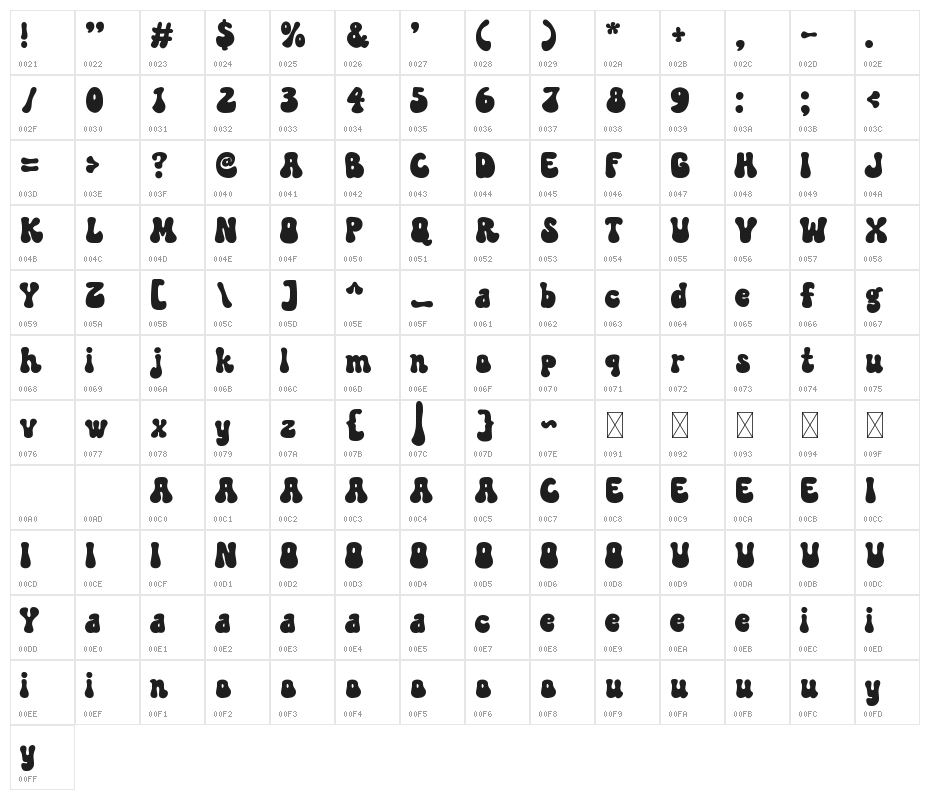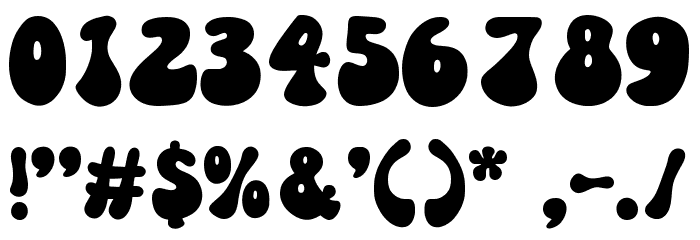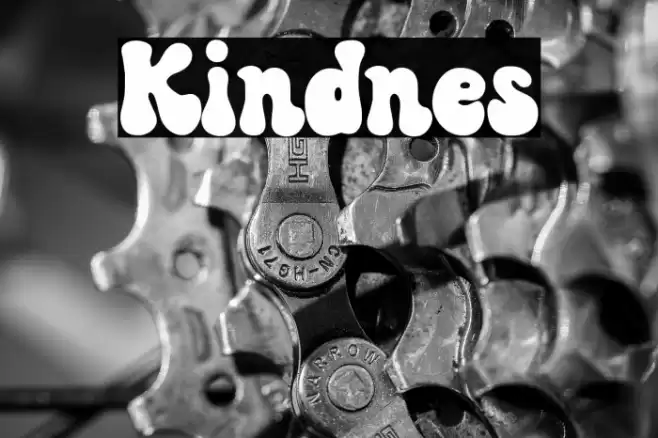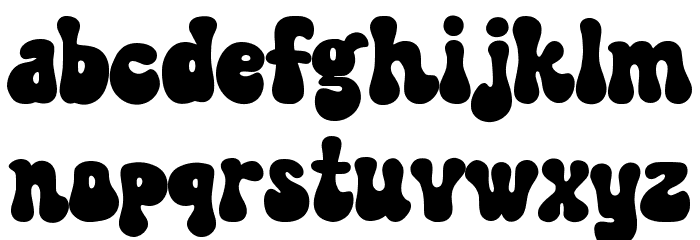
Kindnes Font
Kindnes Description
This font features a playful and bold design with rounded, bulbous characters that convey a sense of fun and whimsy. The letters are thick and have a soft, almost bubbly appearance, making them stand out with a strong visual presence. The overall style is informal and friendly, with a unique charm that captures attention. The characters are evenly spaced, contributing to a balanced and cohesive look. This font is ideal for projects that require a lively and engaging aesthetic, such as children's books, playful branding, or creative posters.
| Overall Style | Playful, Whimsical |
| Proposed Projects | Ideal for children's books, playful branding, creative posters, and fun invitations. |